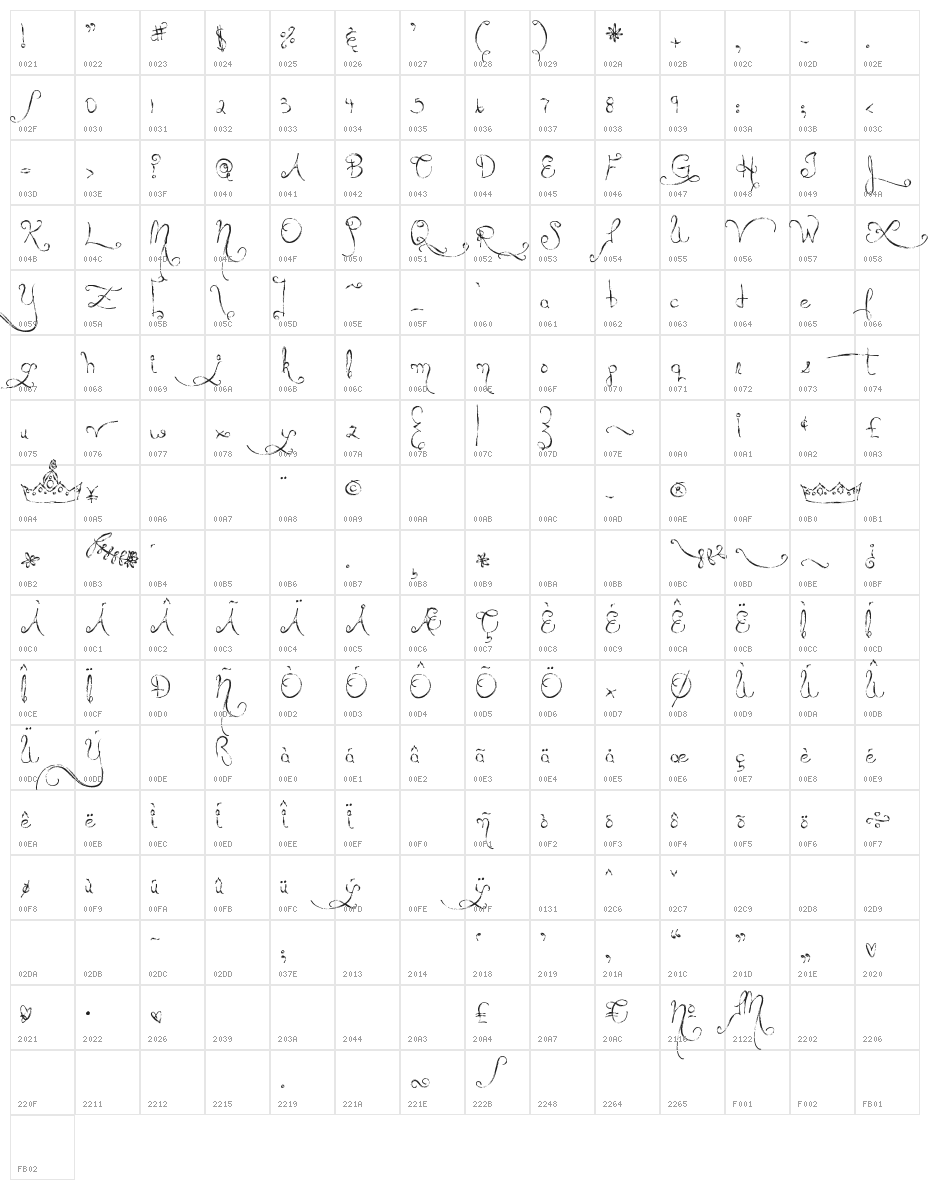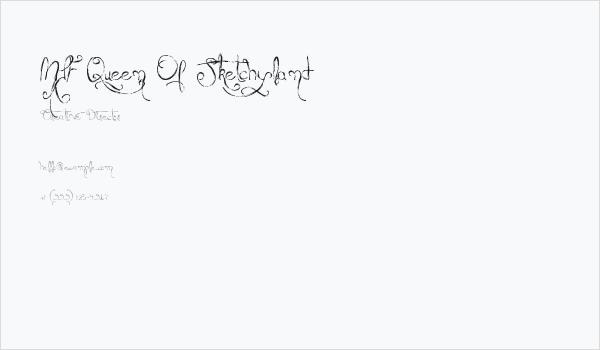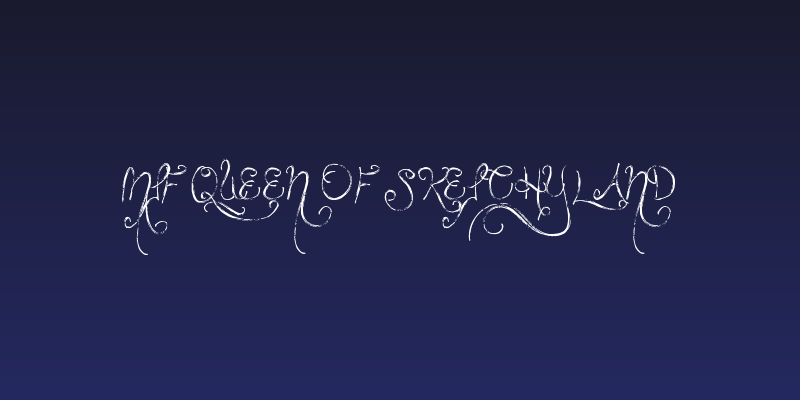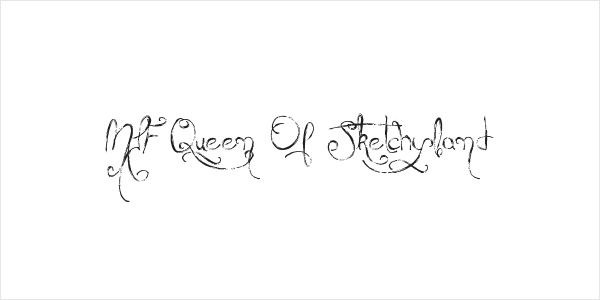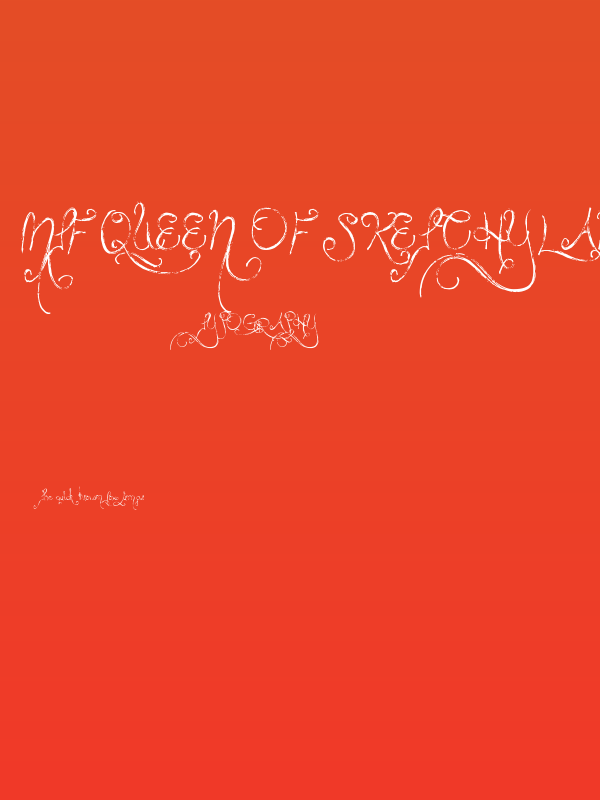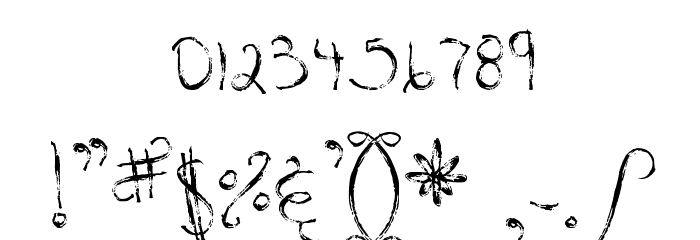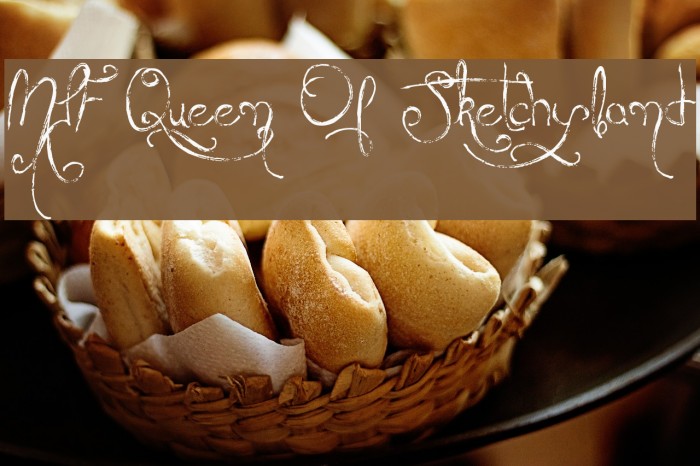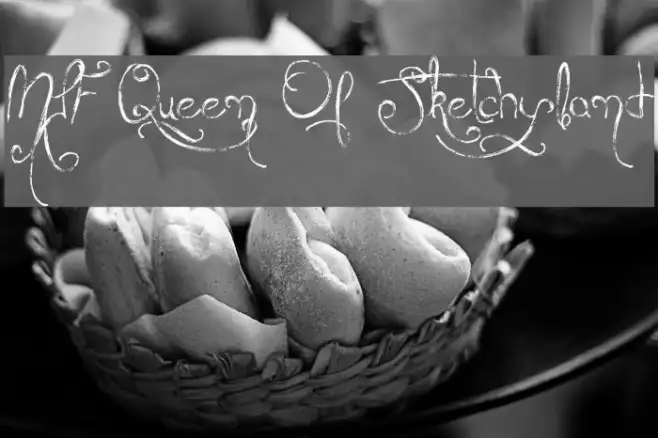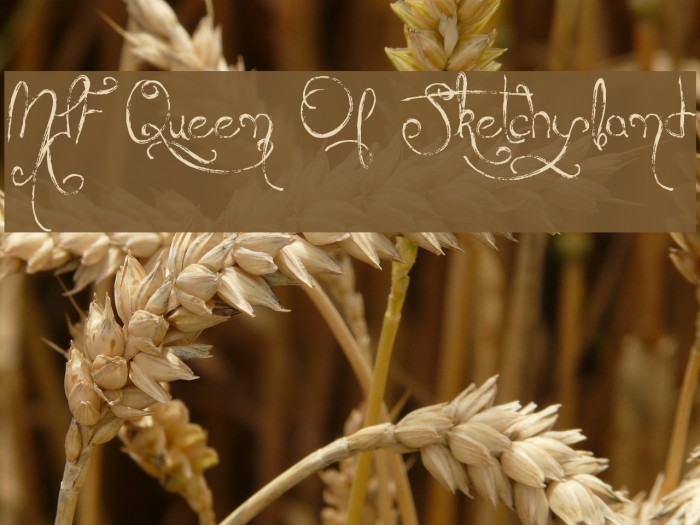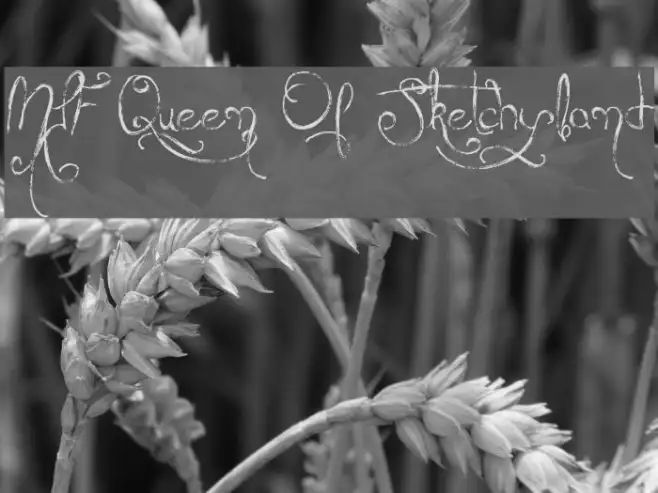
MTF Queen Of Sketchyland Font
✎ Calligraphic
MTF Queen Of Sketchyland Description
This font features an artistic and whimsical style with a sketchy, hand-drawn appearance. Each character is adorned with elaborate swirls and flourishes, giving it a unique and decorative look. The strokes are uneven, adding to the sketch-like quality, and the overall design is reminiscent of calligraphy with a modern twist. The uppercase and lowercase letters maintain a consistent style, while numbers and special characters are equally ornate, making it suitable for creative and artistic projects.
| Use Case | Logos, Headlines, Artistic projects |
| Proposed Projects | Ideal for invitations, greeting cards, artistic posters, and branding projects that require a creative and unique touch. |